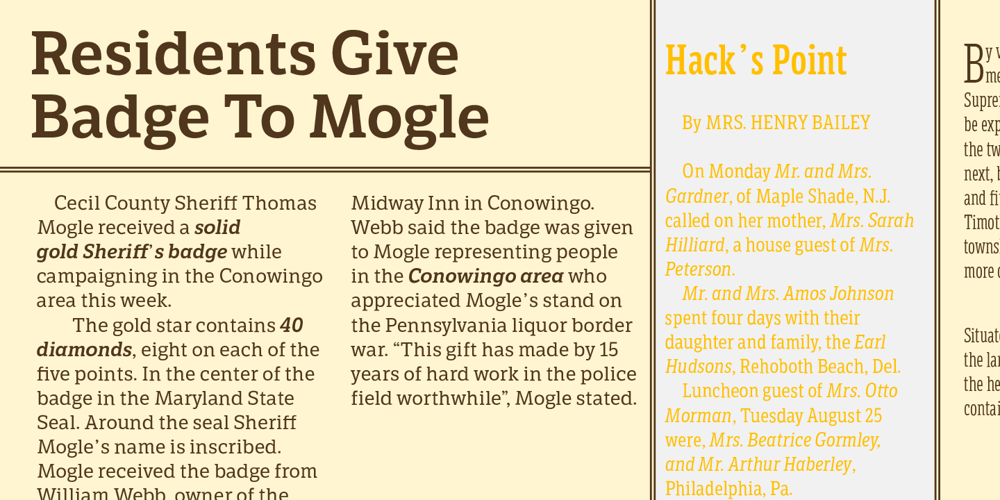
LFT Etica Sheriff Font Family was designed by Leftloft and published by TypeTogether. LFT Etica Sheriff contains 36 styles and family package options. “LFT Etica, the moralist type family by Leftloft, began at the end of 2000, but its development is ongoing as it expands to fill the astute designer’s needs. The starting point was the common, cold grotesque sans typefaces — ubiquitous and often badly applied in their everyday visual environment. The challenge was to obtain the same force, versatility, and colour, but with a much warmer feel. LFT Etica resides aesthetically somewhere between a grotesque and a humanist sans serif, resulting from a design of soft strokes with open counters and terminals. LFT Etica successfully combines forcefulness and delicacy, wrapping both with sober charm. Milan-based Leftloft studio teamed up with Octavio Pardo to develop 24 additional styles for the very successful LFT Etica type family. This expansion is a direct response to type users’ requests who found in LFT Etica a de facto choice for web design. The new styles come in two series — 12 condensed widths and 12 compressed ones — and have proven versatile in applications where the ratio between information and space becomes an important challenge. Each letter was scrutinised to ensure durability throughout time and adaptability within circumstance, so LFT Etica meets the challenge of balance head-on. With its wide current range of 40 styles and many OpenType features (four sets of numerals, fractions, arrows, and dingbats, as well as stylistic alternates), LFT Etica is a versatile typeface suitable for corporate or casual use, for printed publications as well as web design. The complete LFT Etica family, along with our entire catalogue, has been optimised for today’s varied screen uses.”